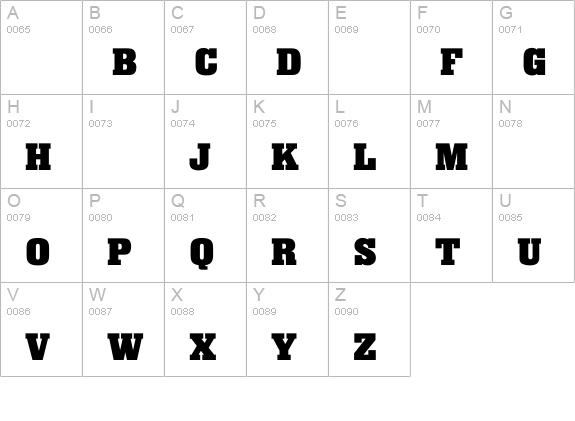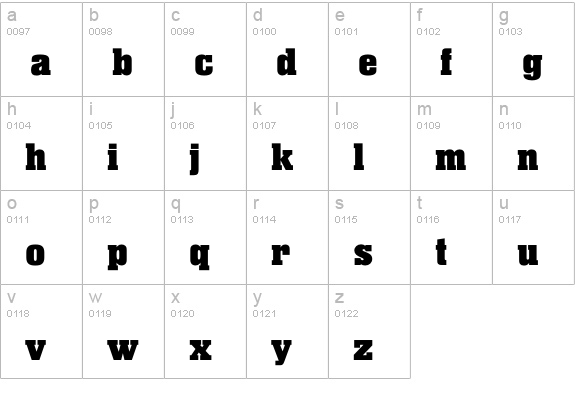
SuperbaBold is a striking and powerful font that exudes confidence and sophistication. With its bold and commanding presence, this font is perfect for making a bold statement in any design project. Its clean lines and strong curves give it a modern and timeless appeal that is sure to catch the eye. Whether you are creating a logo, poster, or website, SuperbaBold will help you stand out from the crowd. The best part is that SuperbaBold is available for free download at FontsMarket.com. So, you can add this impressive font to your collection without any cost. Don't miss out on this opportunity to enhance your designs with the impactful style of SuperbaBold. Download it today and unleash your creativity!